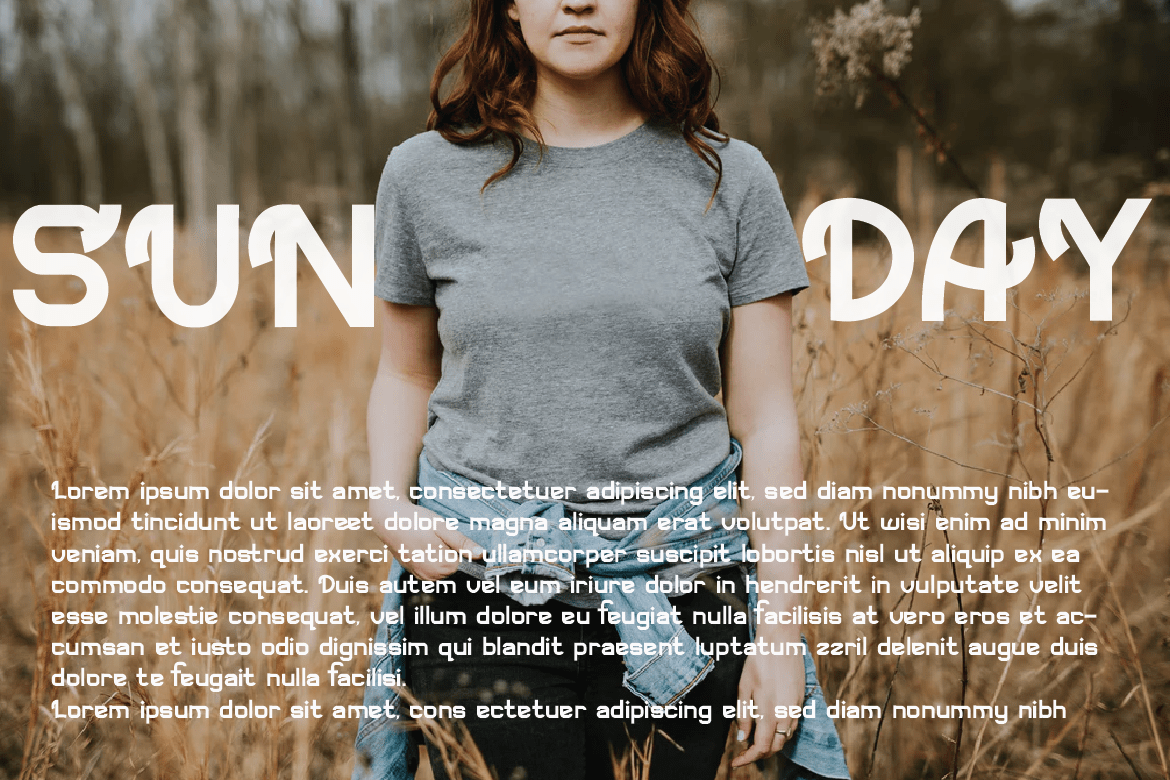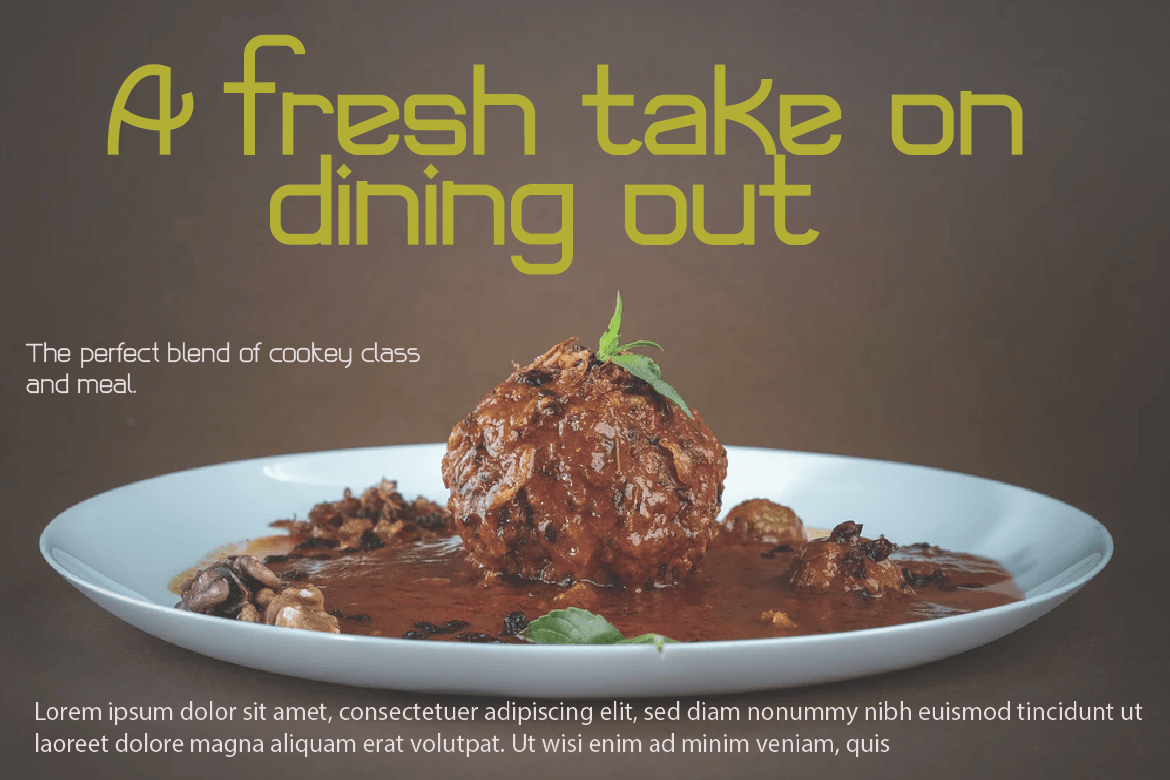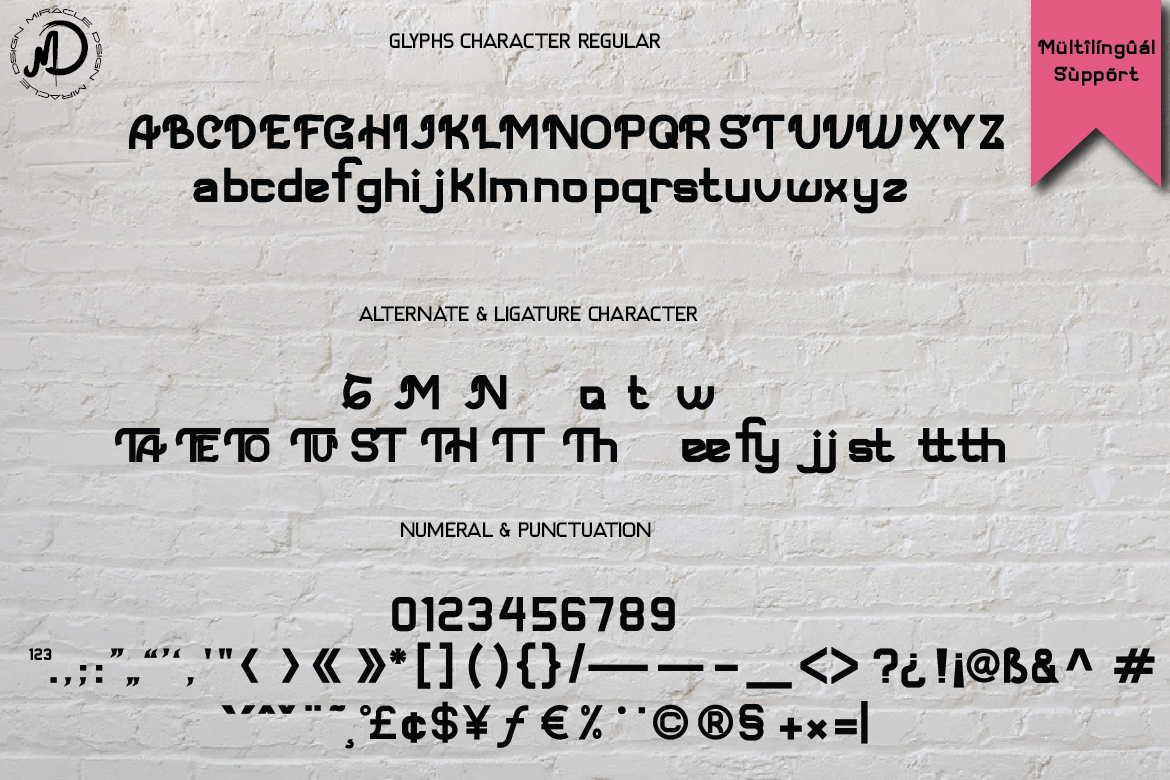
THOST Font
THOST Display Font
It’s sanserif/display fonts with a new look, which is stylish and flexible. Its bold, solid, clear and strong character makes this font look beautiful with the right portion in your various design projects
This font was created with a burning sense of fun and passion applied to this font design, so this font is suitable for offline or online games, PC or smartphone games, adventure posters, children\’s movie titles, food titles and logos, magazines, youtube cover images, social media page covers, banner titles, children\’s book titles, movie titles and more.